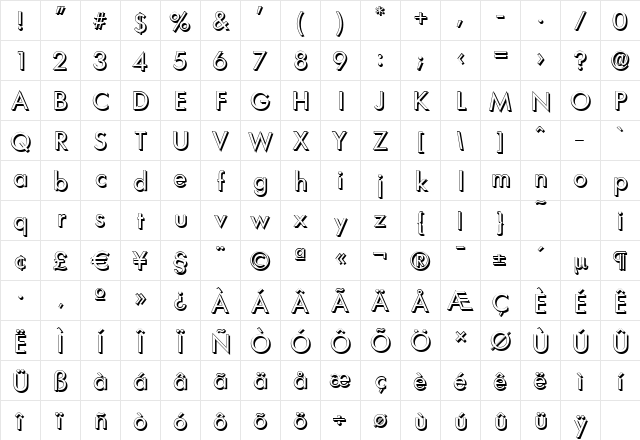
Complete LimerickShadow Regular glyph index. Displaying only characters natively supported by LimerickShadow Regular font.
LimerickShadow is built around its visual character rather than neutral utility - its distinctive forms are designed to make an impression at display sizes.
Font Pairing: Pair with a clean neutral sans-serif for body copy to let LimerickShadow's character lead without overwhelming the composition.
Pro Tip: Use LimerickShadow exclusively at display sizes - it was designed to be seen, not read at length. Let a neutral companion handle body copy.